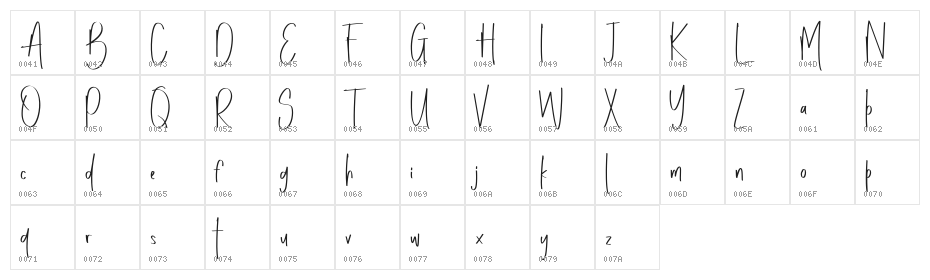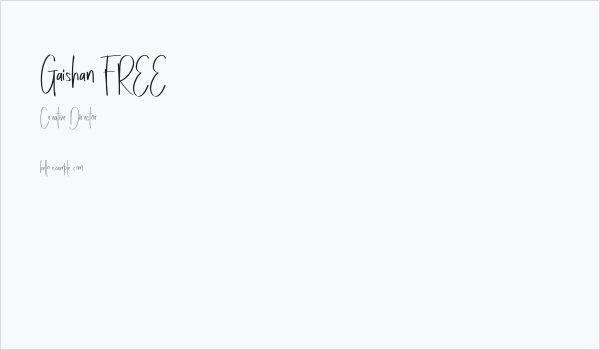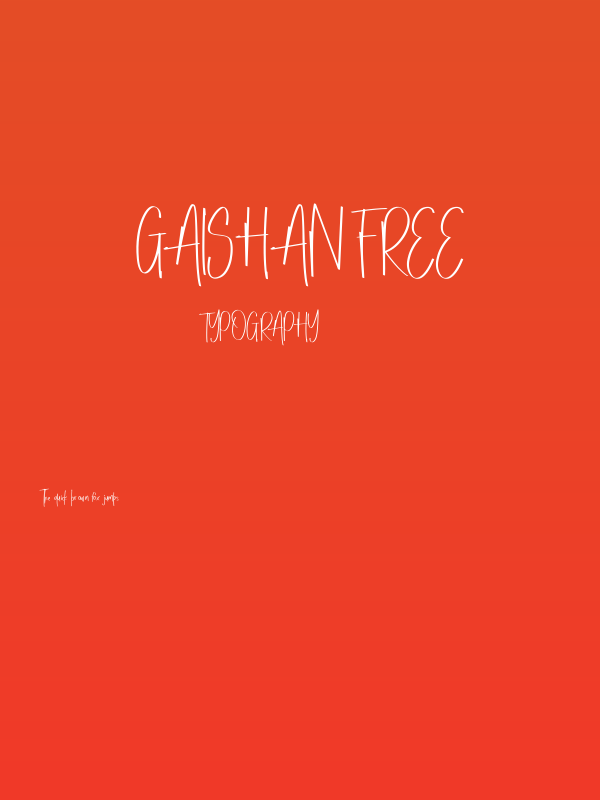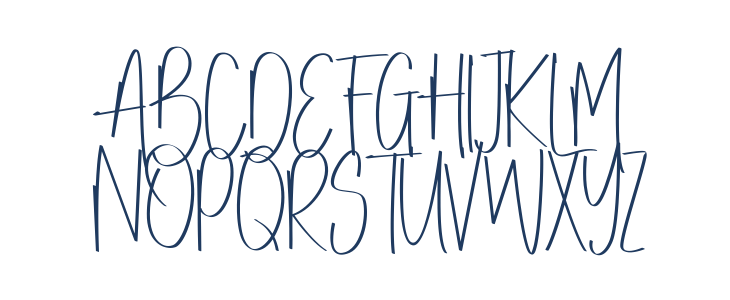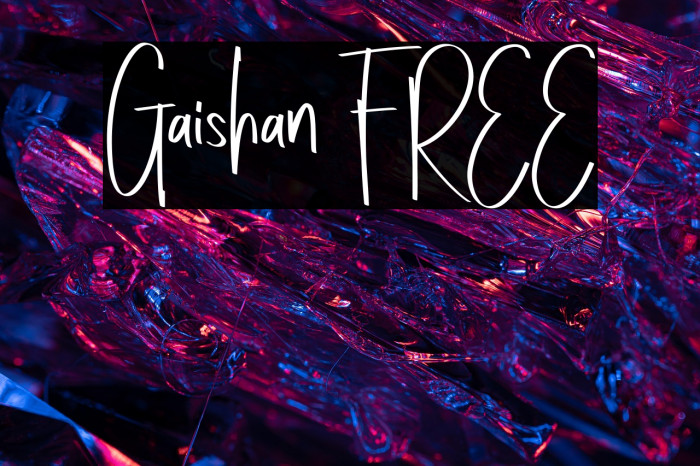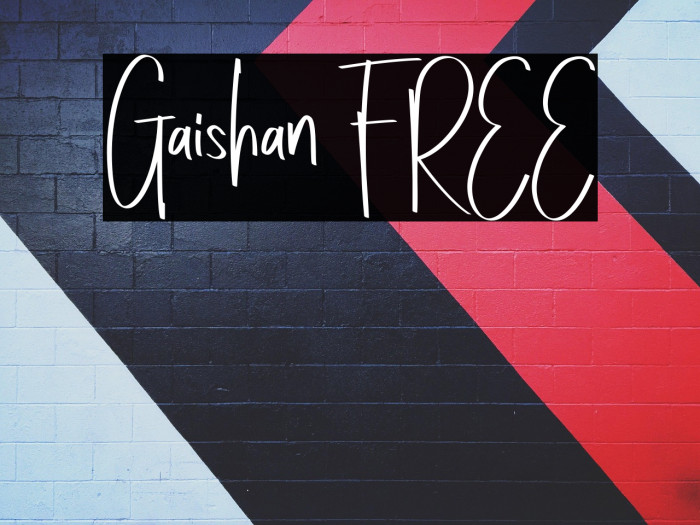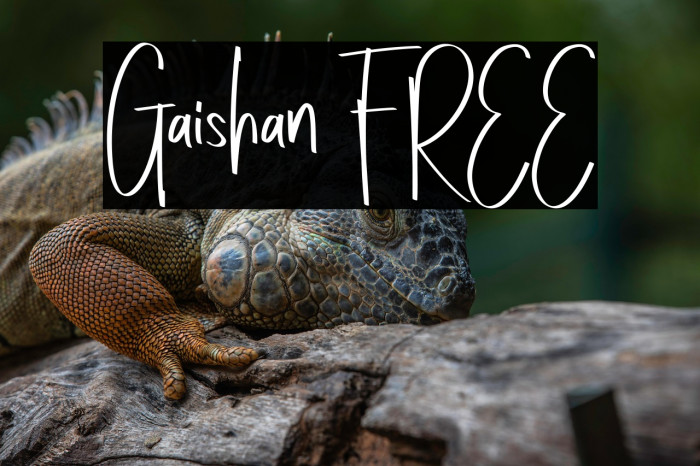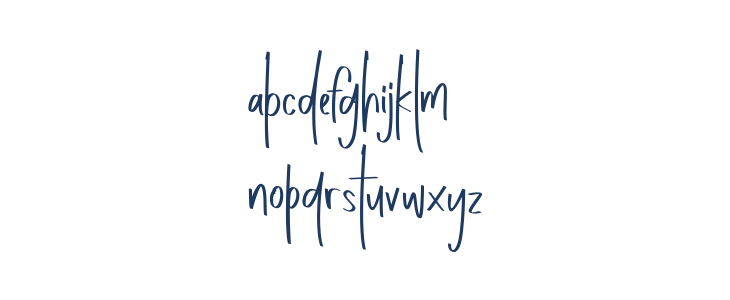
Gaishan FREE Font
Gaishan FREE Description
A handwritten, casual script font with tall, thin, and slightly irregular characters, giving a playful and informal appearance.
| Overall Style | Casual, Playful, Informal |
| Use Case | Invitations, Greeting Cards, Personal Branding, Creative Projects |